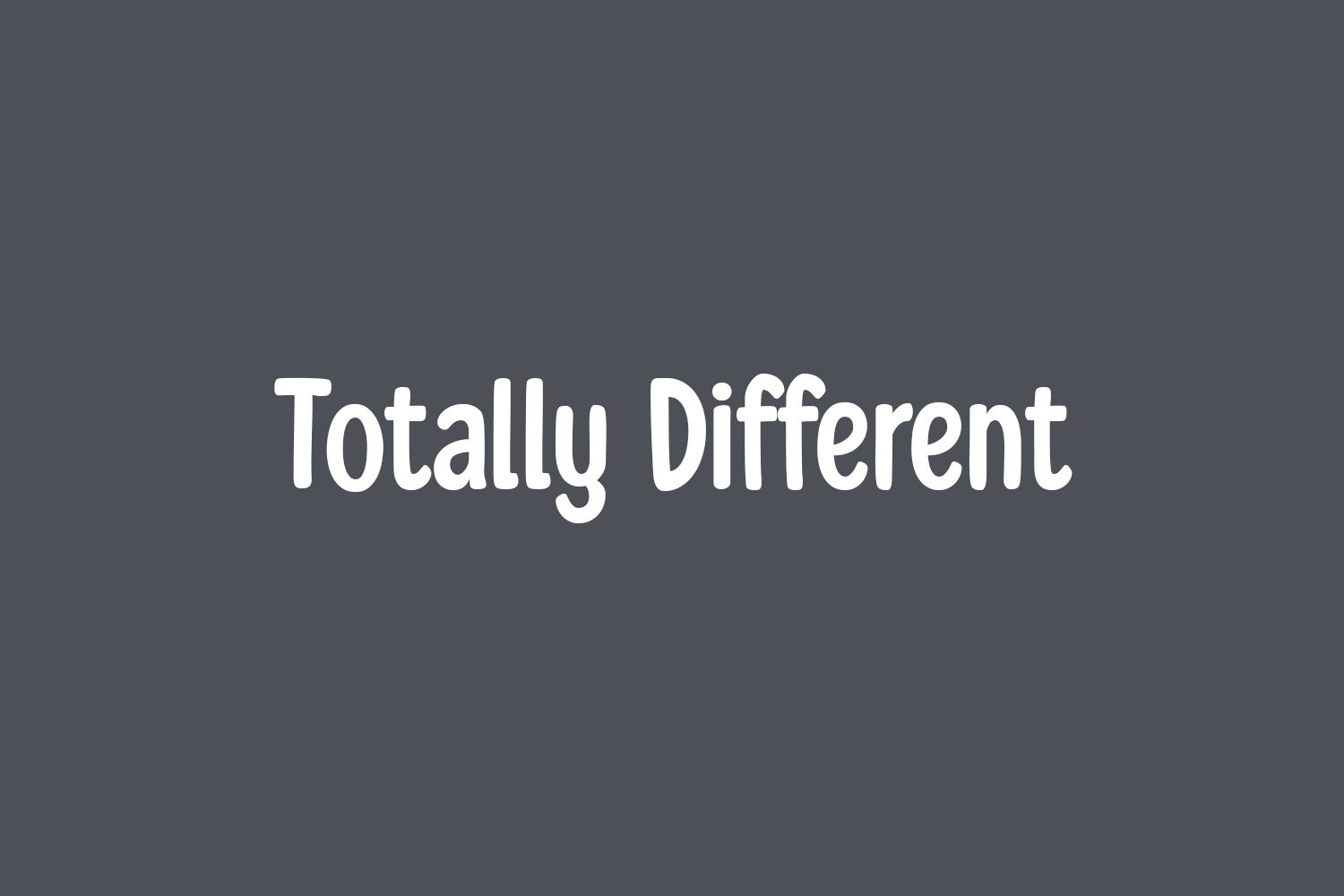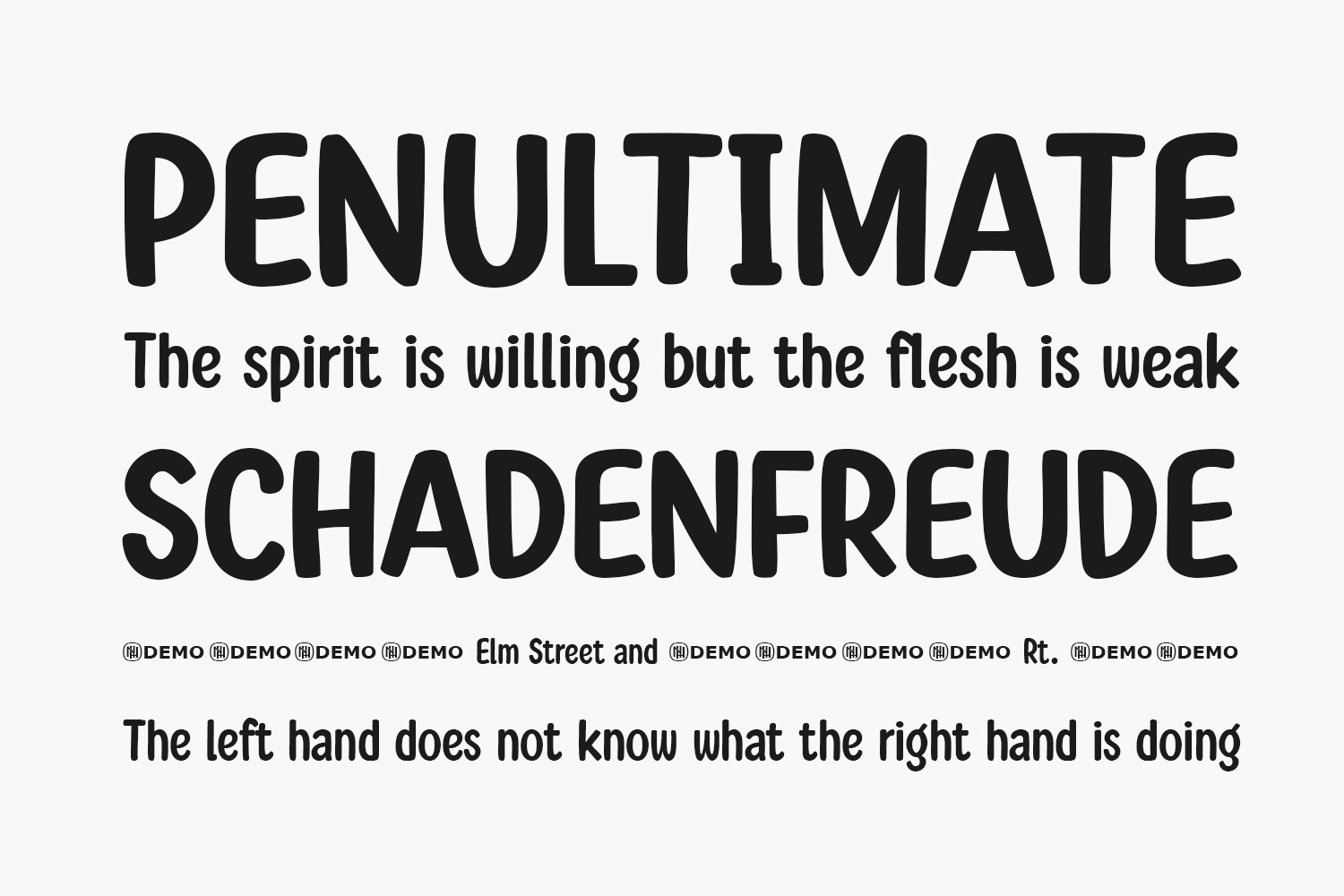
Totally Different Free Font is a clean and neat display font. This adaptable font will look great on a variety of design ideas. It will add a fun and friendly touch to each of your projects. Totally Different Free Font was designed by Niskala Huruf is a demo and free for personal use only. Please purchase the full version for commercial use.